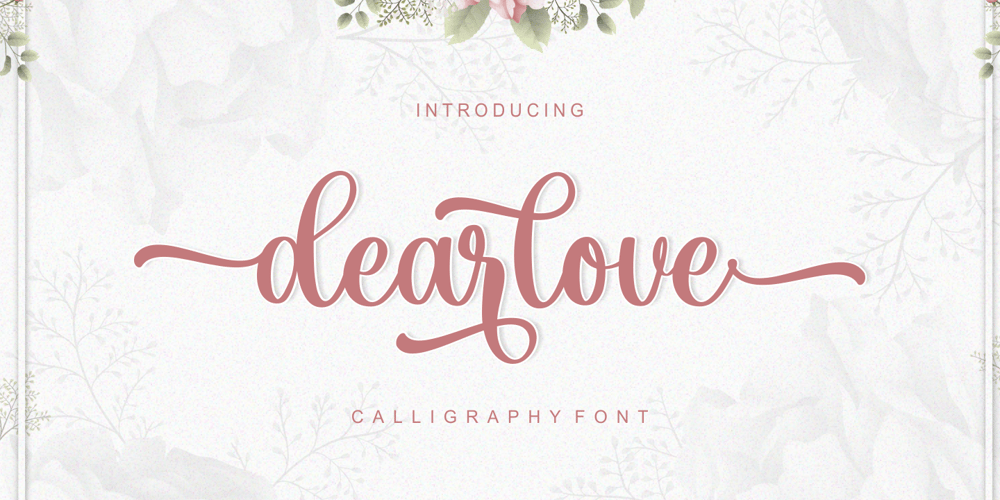
Dearlove Font Family was designed by Muhammad Fikry and published by Fikryal. Dearlove contains 1 styles and family package options. Dearlove is a beautiful calligraphy font perfect for crafting, branding, invitation, stationery, wedding designs, social media posts, advertisements, product packaging, product designs, label, photography, watermark, special events or anything.Dearlove comes with full set of uppercase and lowercase letters, swash alternates, ligatures,multilingual symbols, numerals and punctuation.